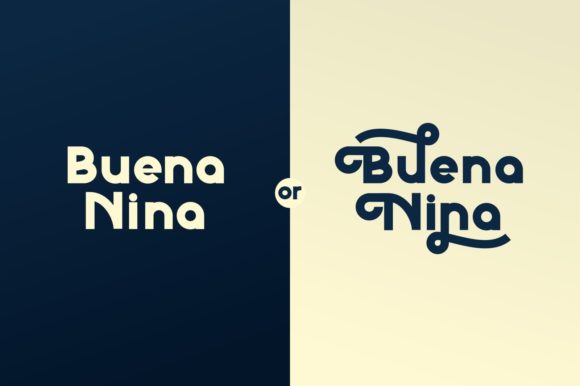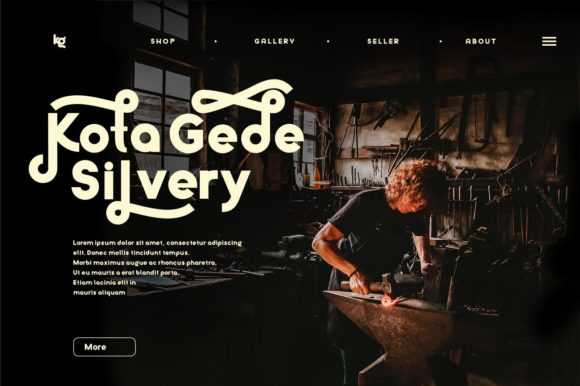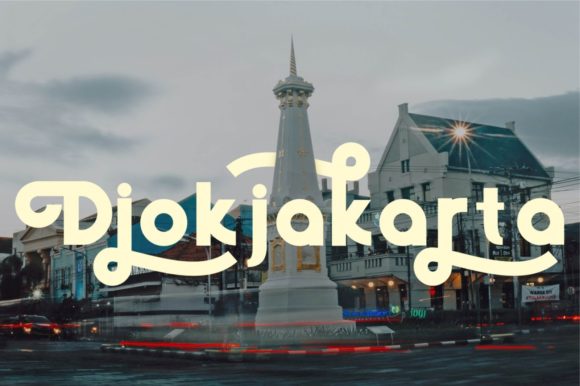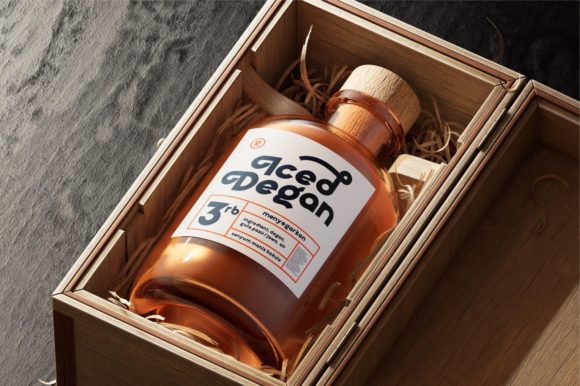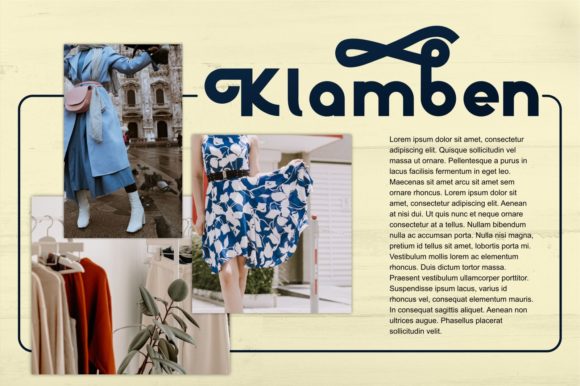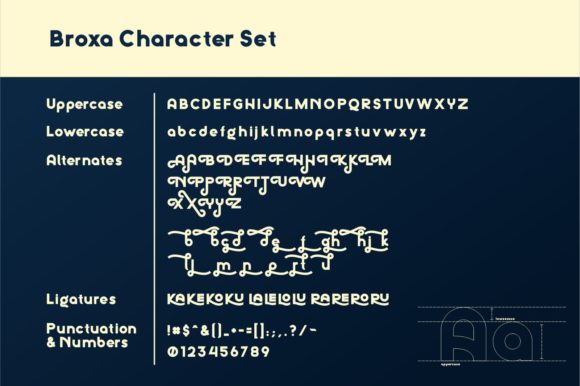
Introducing Broxa Font: Elevate Your Designs with a Cool and Vintage Flair
In the world of typography, fonts play a crucial role in defining the aesthetic and tone of a design. Whether you’re working on a formal project or an informal one, selecting the right font can make all the difference. If you’re on the hunt for a font that combines a cool, vintage vibe with versatility, look no further than Broxa Font. This stunning display font is making waves in the design community, and for good reason. In this article, we’ll dive into what makes Broxa Font so special and why it should be your next go-to for a wide range of design projects.
The Unique Charm of Broxa Font
Broxa Font stands out with its unique blend of cool and vintage styles. Its distinctive characters are carefully crafted to add a touch of nostalgia and flair to any design. Whether you’re creating a logo, a poster, a website header, or any other visual project, Broxa Font brings a level of sophistication and charm that’s hard to achieve with more generic fonts.
One of the key features that set Broxa apart is its incredible versatility. It works incredibly well on a variety of designs, both formal and informal. This means that whether you’re working on a corporate brand identity or a more casual, creative project, Broxa Font can adapt to fit your needs. Its ability to seamlessly blend into different contexts makes it a valuable addition to any designer’s toolkit.
Broxa Font is PUA (Private Use Area) encoded, which is a game-changer for designers. PUA encoding allows for easy access to all the glyphs and swashes within the font. This means you can effortlessly incorporate intricate details and decorative elements into your designs without the hassle of navigating complicated font menus or relying on external design software.
The inclusion of swashes and glyphs adds an extra layer of creativity to your designs. Swashes can be used to create beautiful connections between letters, adding a flowing, artistic feel to your typography. Glyphs, on the other hand, offer a range of alternative characters and symbols that can be used to add variety and personality to your text. With Broxa Font, you have the tools at your fingertips to create truly unique and eye-catching designs.
Applications of Broxa Font
The applications of Broxa Font are vast and varied. Here are a few ideas to get you started:
- Branding and Logos: Use Broxa Font to create memorable logos that stand out. Its vintage charm can help your brand appear more approachable and unique.
- Posters and Flyers: Add a touch of elegance and sophistication to your promotional materials with Broxa Font.
- Web Design: Elevate your website’s header and title text with a font that grabs attention and conveys a sense of style.
- Social Media Graphics: Make your social media posts stand out with eye-catching typography.
- Packaging: Use Broxa Font on product packaging to give your brand a distinctive and premium feel.
Broxa Font is more than just a font – it’s a design tool that can elevate your projects to new heights. Its cool, vintage style combined with its versatility and PUA encoding makes it an invaluable resource for designers and crafters. Whether you’re working on a formal or informal project, Broxa Font offers the perfect blend of style, functionality, and creativity.